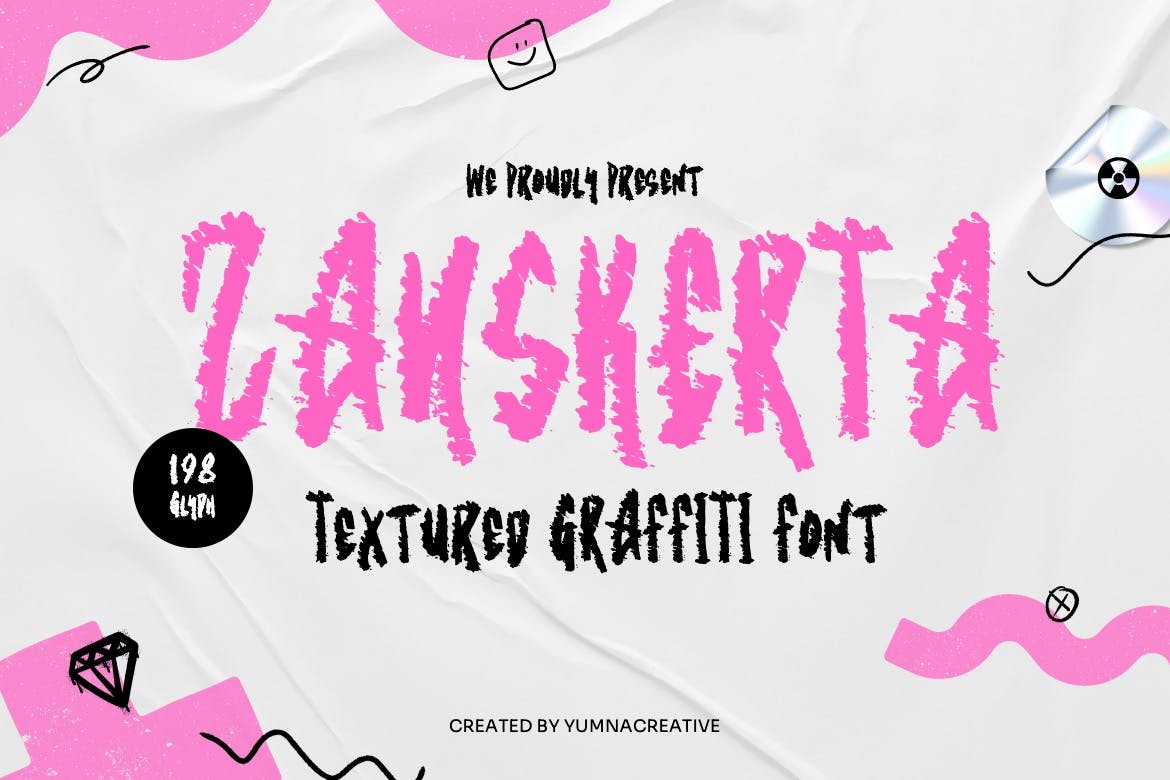
Zanskerta - Textured Graffiti Font
Zanskerta - Textured Graffiti Font is ideal for street art projects, urban branding campaigns, hip-hop music covers, rebellious poster design, youth-oriented marketing, extreme sports branding, underground event promotion, street fashion graphics, and edgy social media content.
What makes Zanskerta - Textured Graffiti Font exciting is its authentic street credibility that captures the raw energy and rebellious spirit of genuine urban graffiti culture. This powerful typeface features realistic spray paint textures, drip effects, and weathered details that bring the gritty authenticity of street walls directly into digital designs. The font's bold attitude and uncompromising character make it perfect for brands that need to communicate edge, authenticity, and counter-culture appeal to audiences who value genuine street culture expression.
Zanskerta - Textured Graffiti Font family includes multiple urban variations: Clean, Rough, Dripped, Stencil, Shadow, and Outline styles. Each version maintains the core graffiti aesthetic while offering different levels of texture intensity and visual effects, allowing designers to customize the street art appearance to match their project's specific energy and attitude requirements.
Creative professionals choose Zanskerta - Textured Graffiti Font for its ability to convey rebellion and urban culture through typography alone. The varied texturing and organic imperfections create natural movement and prevent digital repetition that might compromise street credibility. Its bold construction ensures impact even in challenging urban environments.
Whether used for underground music promotion or mainstream youth marketing, Zanskerta - Textured Graffiti Font consistently delivers authentic street typography that resonates with audiences seeking genuine urban culture and rebellious creative expression.